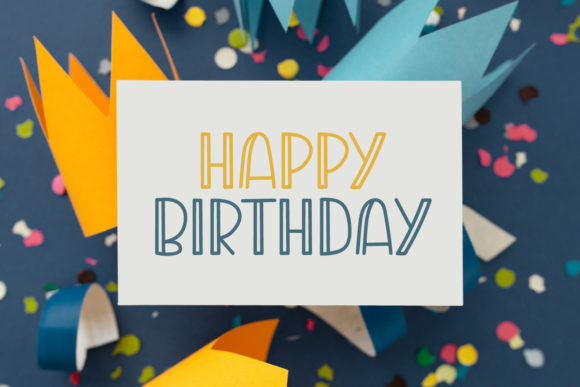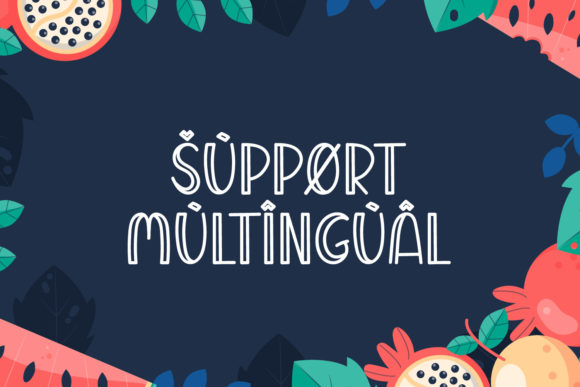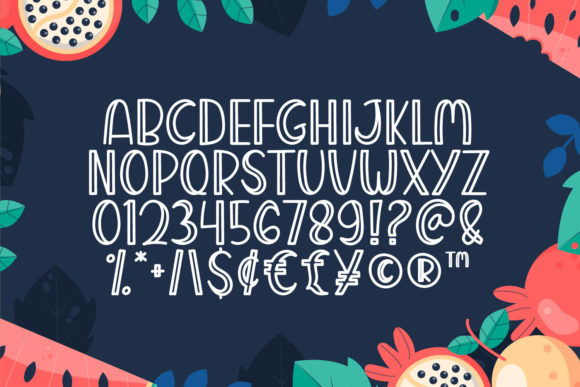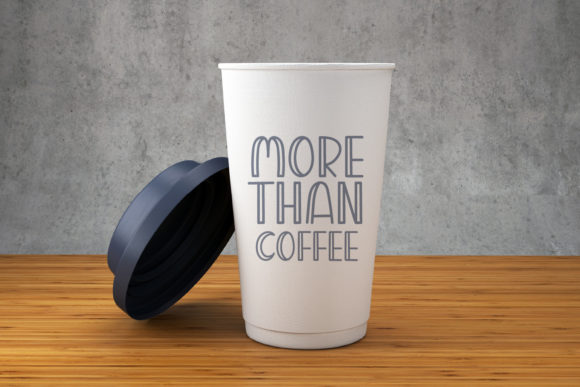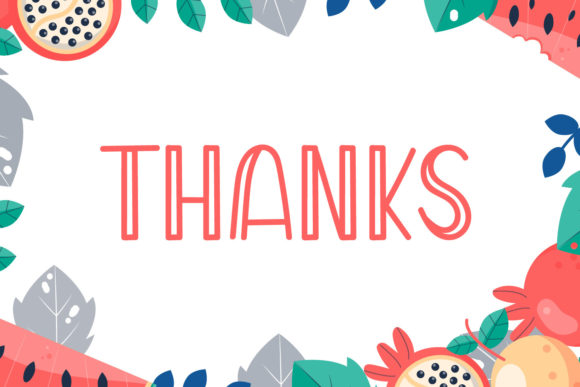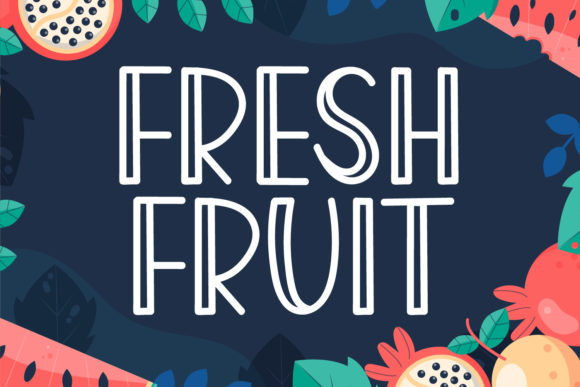
Introducing Fresh Fruit Font: Elevate Your Designs with a Touch of Whimsy
Are you tired of using the same old fonts in your designs? Look no further than Fresh Fruit Font, a cool, clean, and adaptable display font that’s sure to add a touch of magic to your creations. With its modern yet whimsical style, Fresh Fruit Font is the perfect choice for designers and crafters looking to make their designs stand out from the crowd.
The Inspiration Behind Fresh Fruit Font
Fresh Fruit Font is a unique and creative typeface that’s inspired by the freshness and vitality of, you guessed it, fresh fruit! The font’s designer aimed to capture the playful and carefree spirit of a summer’s day, when the sun is shining and the fruit is ripe for the picking. The result is a font that’s both fun and sophisticated, making it perfect for a wide range of design applications.
Key Features of Fresh Fruit Font
So, what makes Fresh Fruit Font so special? Here are just a few of its key features:
- Modern yet whimsical style: Fresh Fruit Font has a unique and eye-catching style that’s both modern and playful. It’s perfect for designers who want to add a touch of personality to their designs.
- Cool and clean design: The font’s clean lines and simple shapes make it easy to read and versatile enough to use in a variety of design applications.
- Adaptable: Fresh Fruit Font is highly adaptable, making it suitable for use in everything from logos and branding to packaging and advertising.
- Magical and immersive: The font’s whimsical style has a way of transporting you to a magical world, making it perfect for designers who want to create designs that are truly enchanting.
Uses for Fresh Fruit Font
Fresh Fruit Font is a versatile typeface that can be used in a wide range of design applications, including:
- Logos and branding: Use Fresh Fruit Font to create a unique and memorable logo that will help your brand stand out from the competition.
- Packaging design: Add a touch of whimsy to your packaging designs with Fresh Fruit Font, perfect for food, beverage, and lifestyle products.
- Advertising and marketing: Use Fresh Fruit Font to create eye-catching ads and marketing materials that will grab attention and leave a lasting impression.
- Stationery and paper crafts: Fresh Fruit Font is perfect for crafters and stationery designers who want to add a touch of personality to their designs.
Why Choose Fresh Fruit Font?
So, why choose Fresh Fruit Font over other fonts on the market? Here are just a few reasons:
- Unique and eye-catching: Fresh Fruit Font is a one-of-a-kind typeface that’s sure to grab attention and make your designs stand out.
- Highly versatile: The font’s adaptability makes it suitable for use in a wide range of design applications.
- Easy to read: Despite its whimsical style, Fresh Fruit Font is easy to read, making it perfect for use in body text as well as headlines.
- Supports multiple languages: Fresh Fruit Font supports multiple languages, making it a great choice for designers who work with international clients.